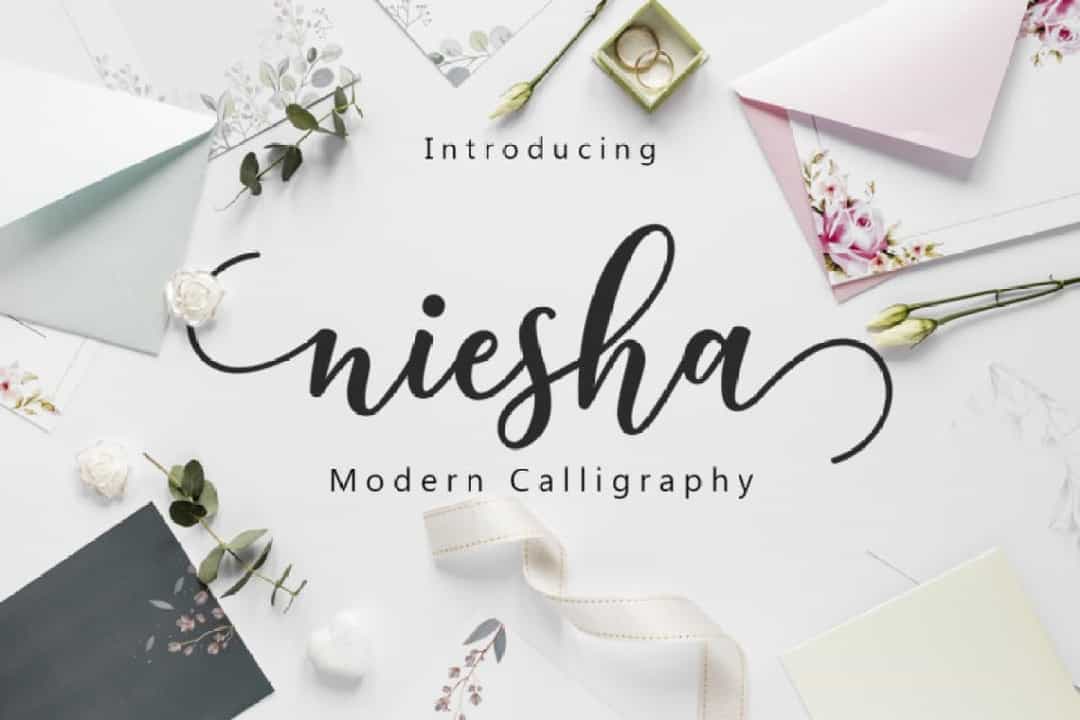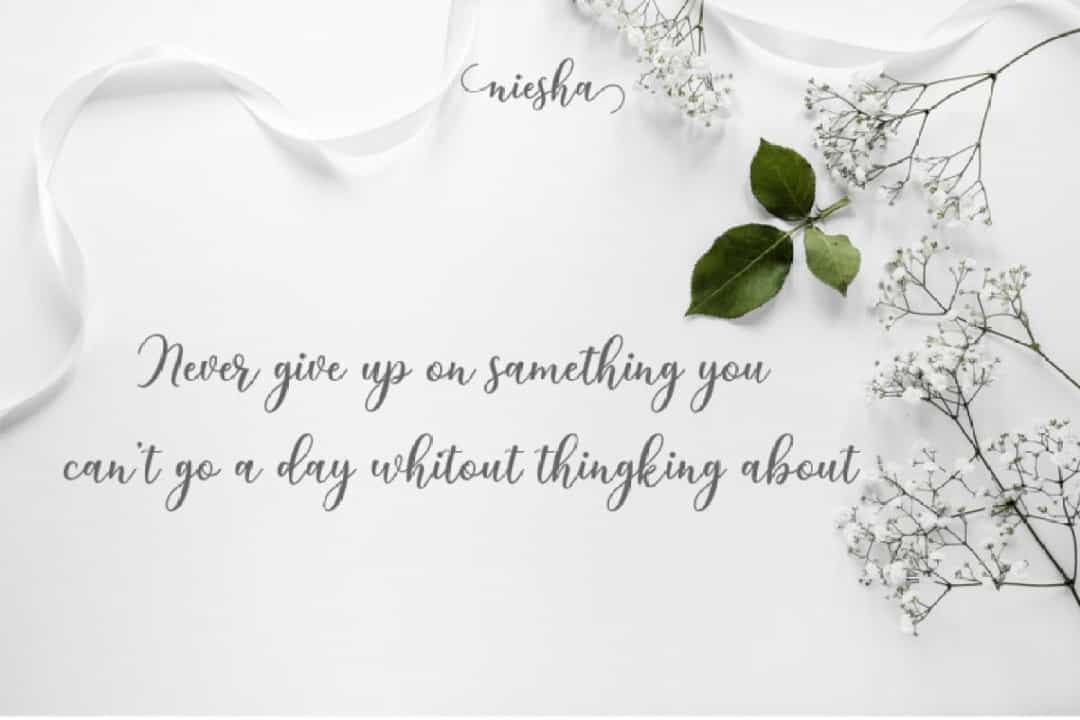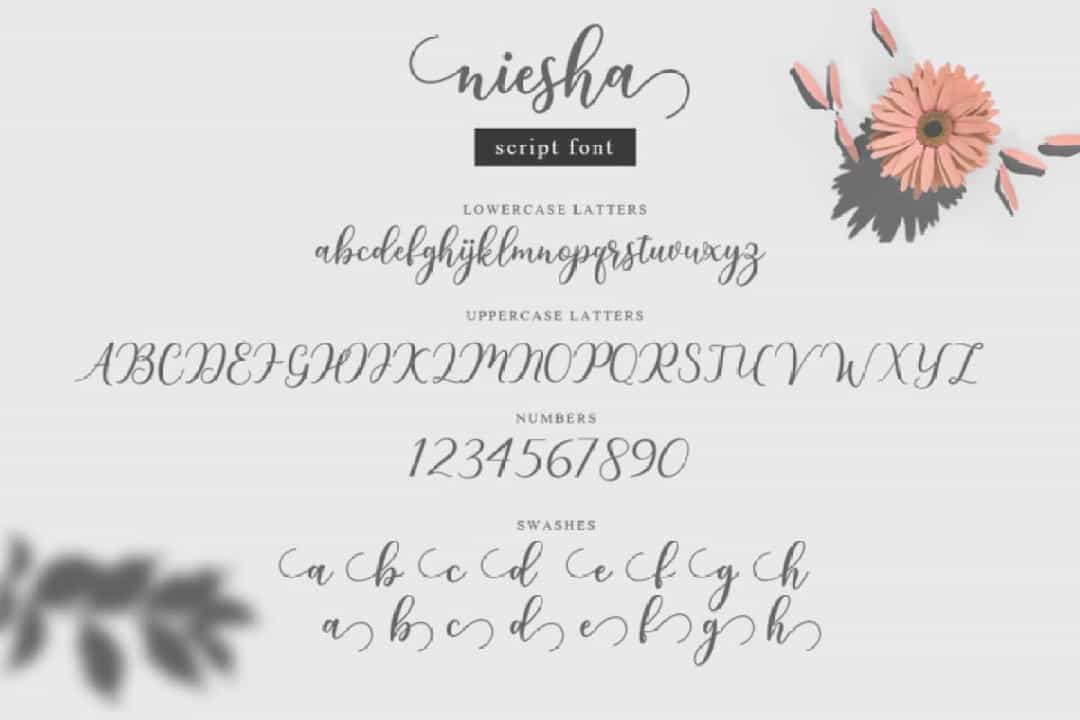
Niesha is a cute and casual handwritten font with the most friendly feel to it. It has stunning swashes and ligatures, which makes this script pack highly useful in any project. If you are in need of fonts for your Instagram or beautiful calligraphy scripts for your DIY projects, Niesha will surely make your concept come to life!